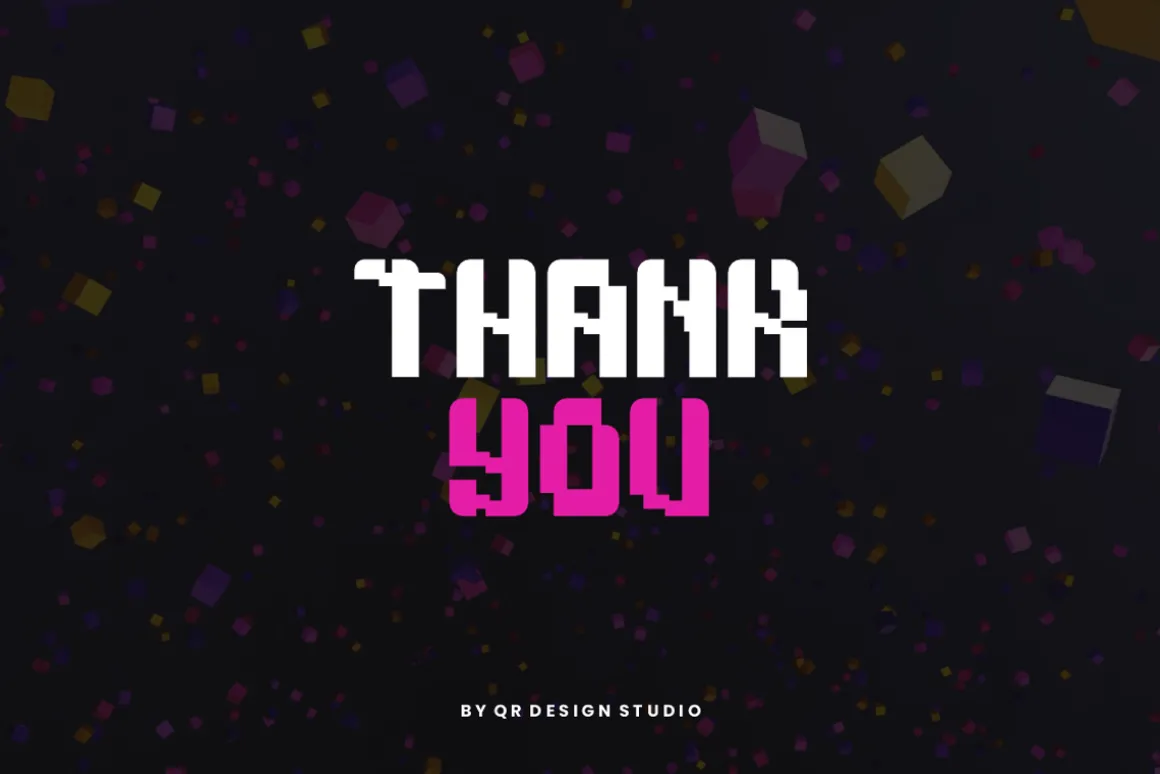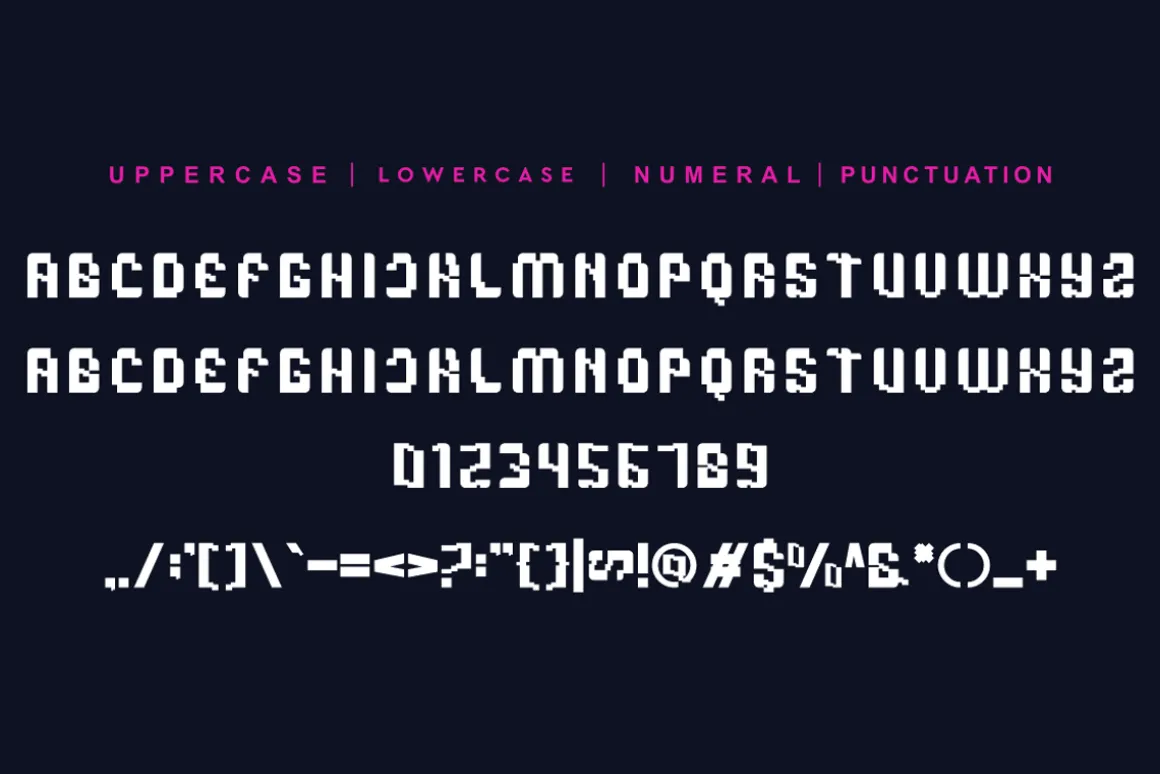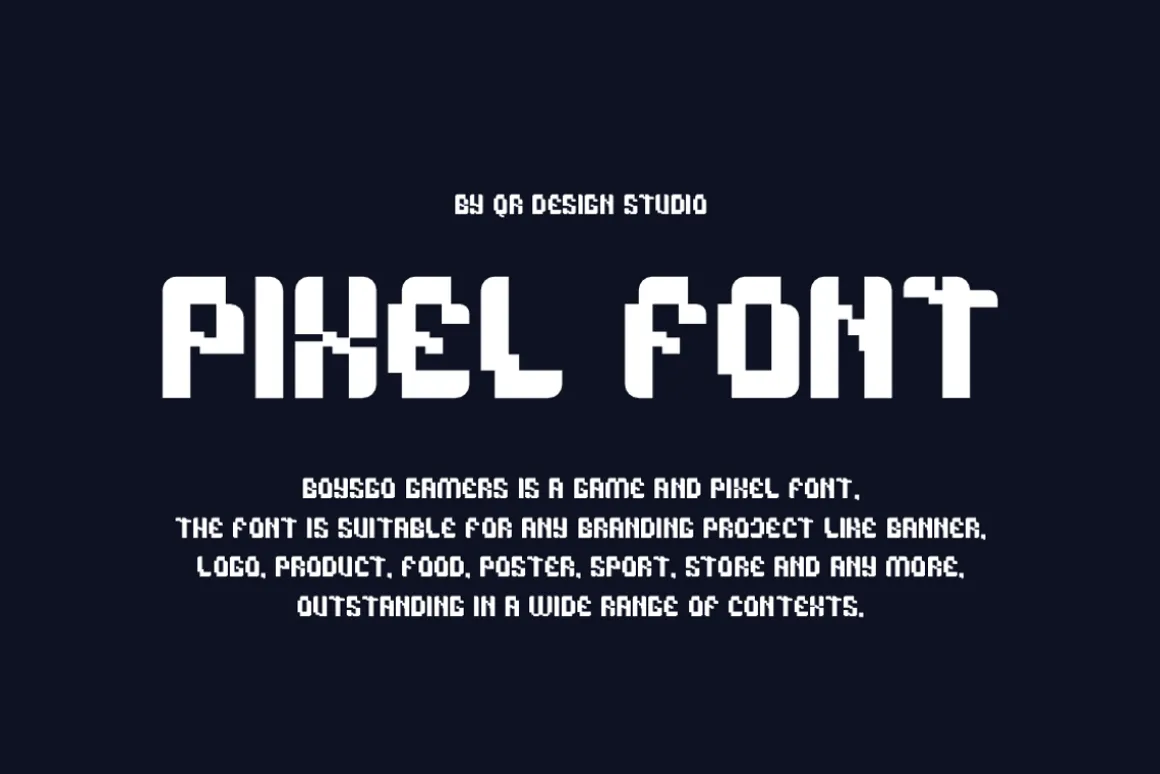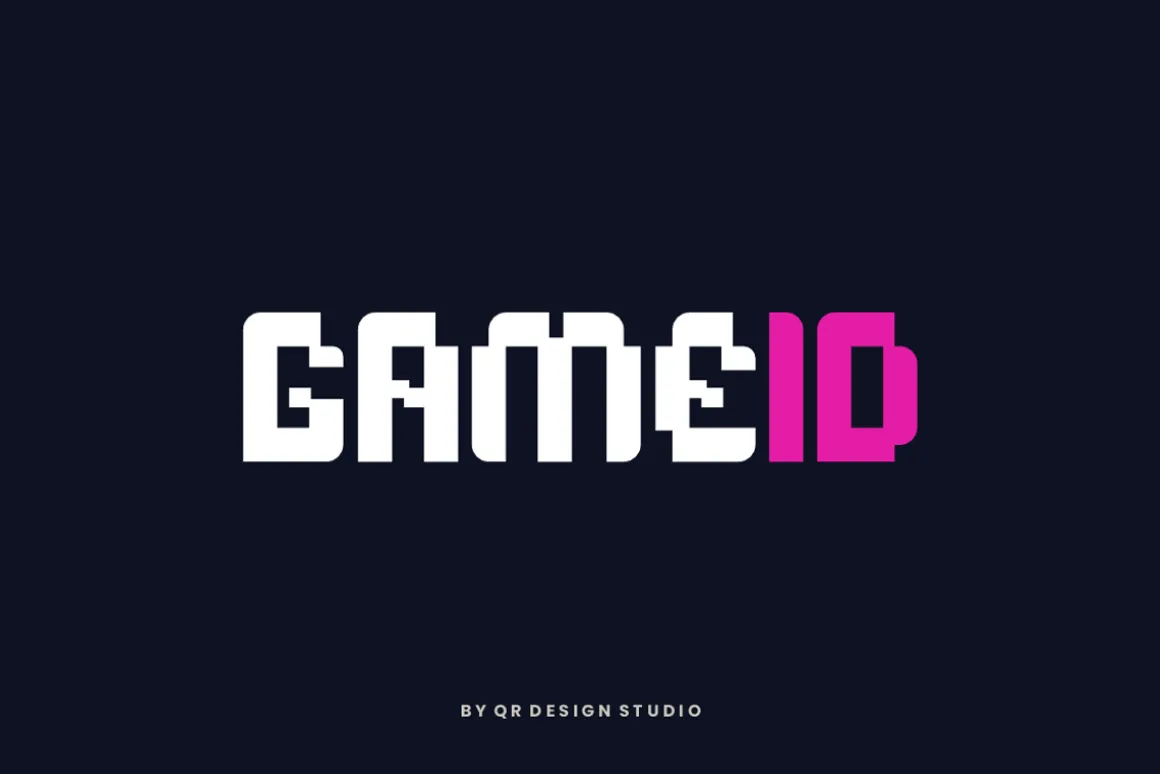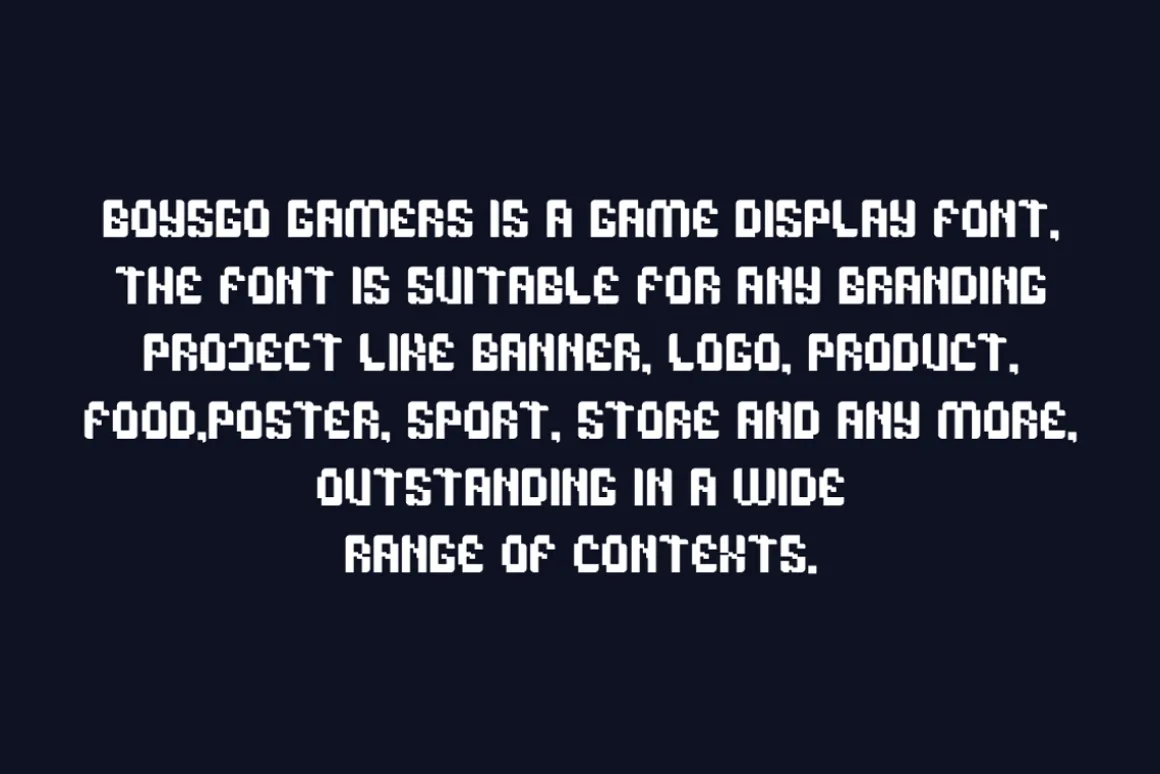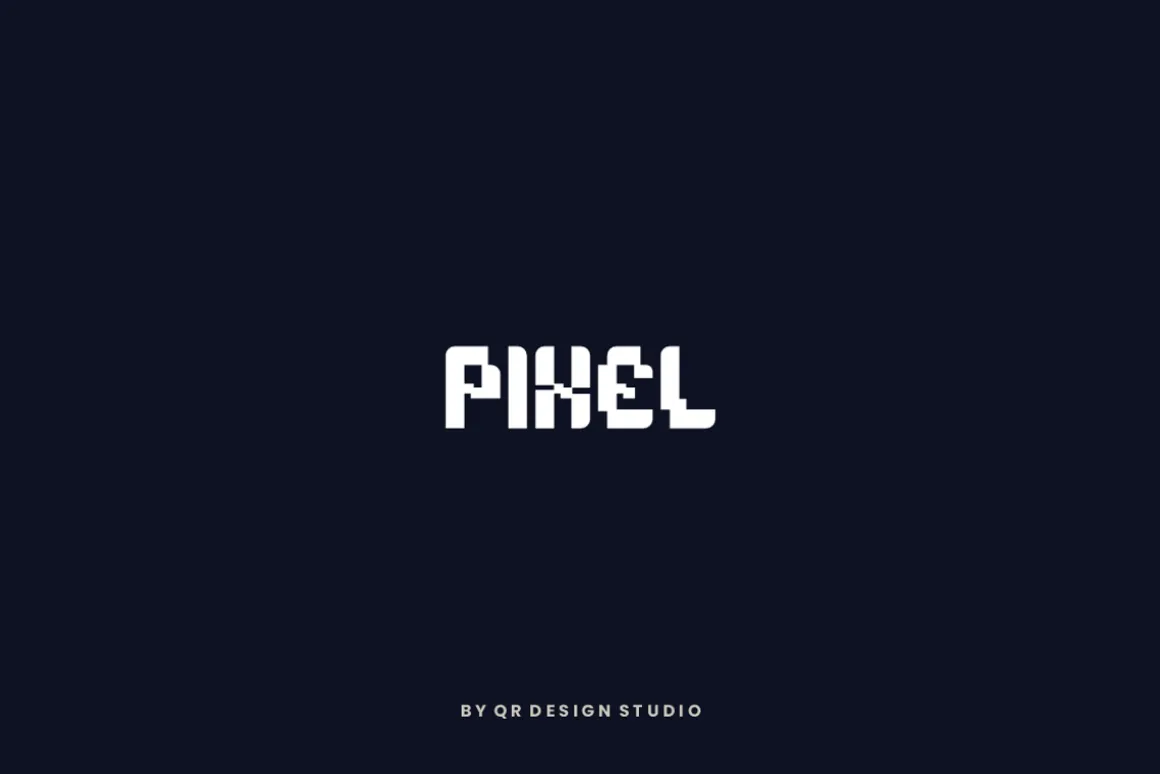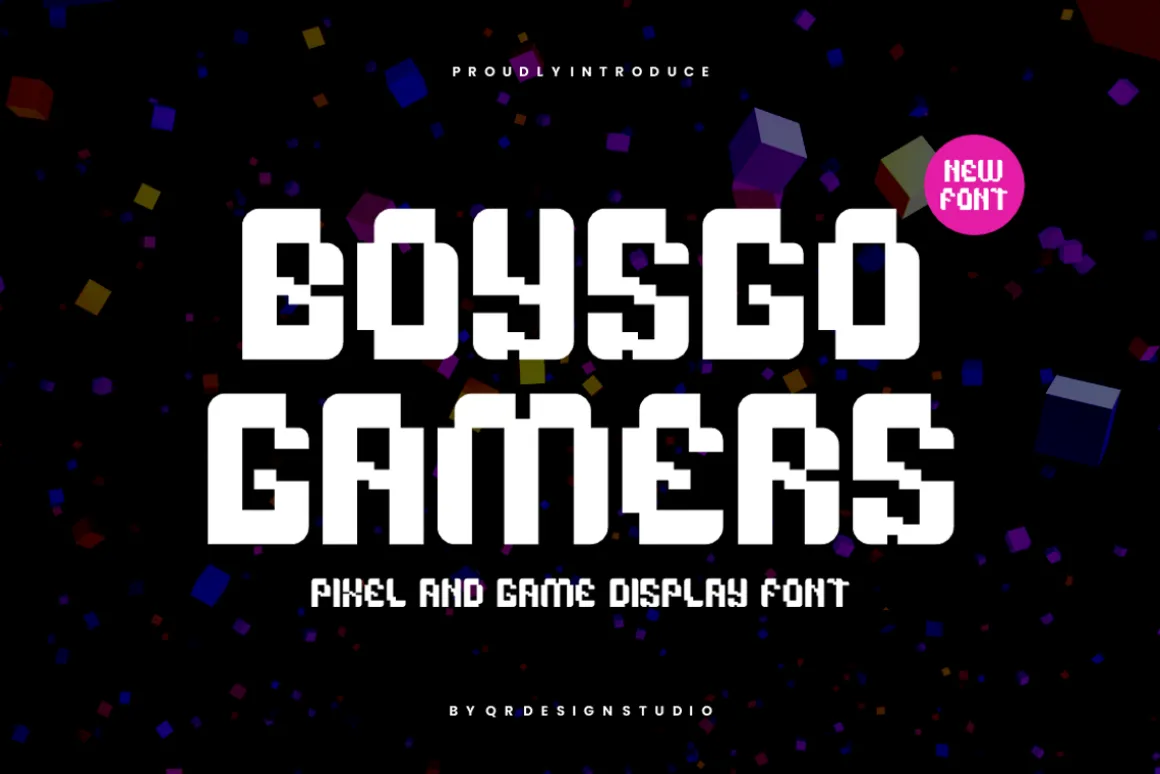
Boysgo Gamers Font is a pixel and authentic display font.The font is suitable for any branding project like poster, logo, sport, and many more.Outstanding in a wide range of contexts.